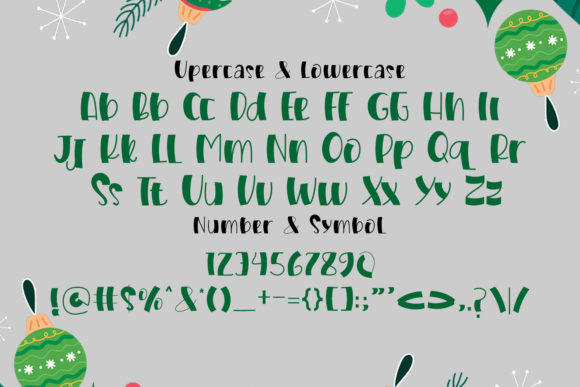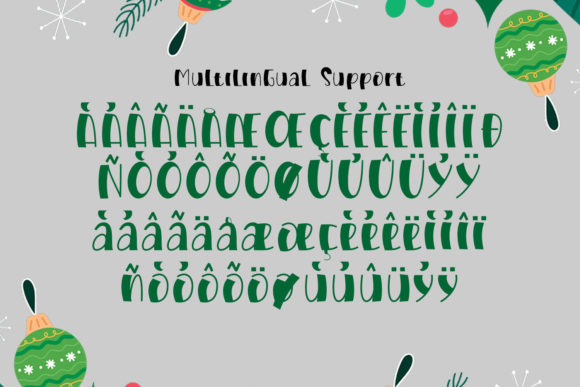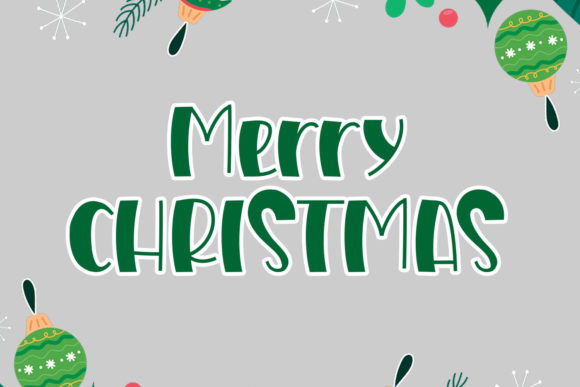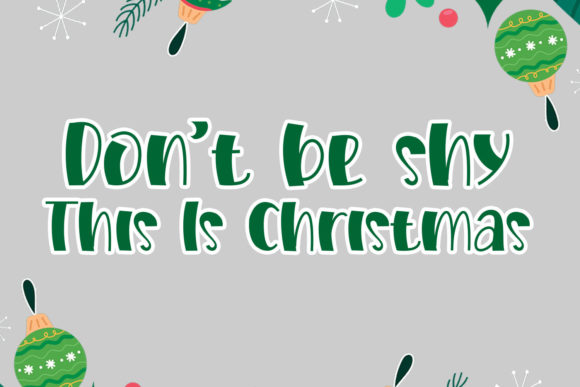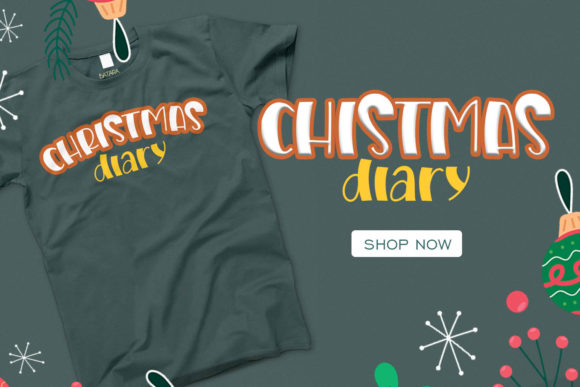
Christ Memory Font – Free Download
Introduction to Christ Memory Font
Christ Memory embodies fun, uniqueness and authenticity.
| 📌 Product Name | Christ Memory Font |
| 👤 Author | Nerdstudio |
This dazzling display font will turn any creative idea into a standout .
Key Features of Christ Memory Font
Why Choose Christ Memory Font?